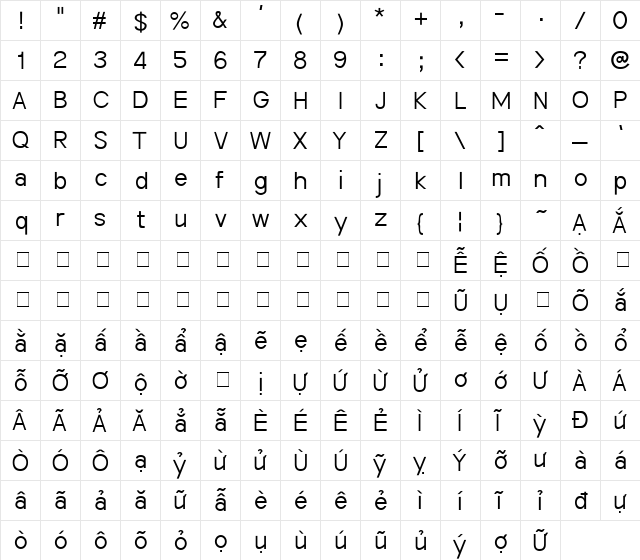
Heo May 1.1 Regular
Design Context for Heo May 1.1 Typeface
Heo May 1.1 offers clean, dependable letterforms without strong stylistic allegiance, making it a practical choice for designers who need flexibility.